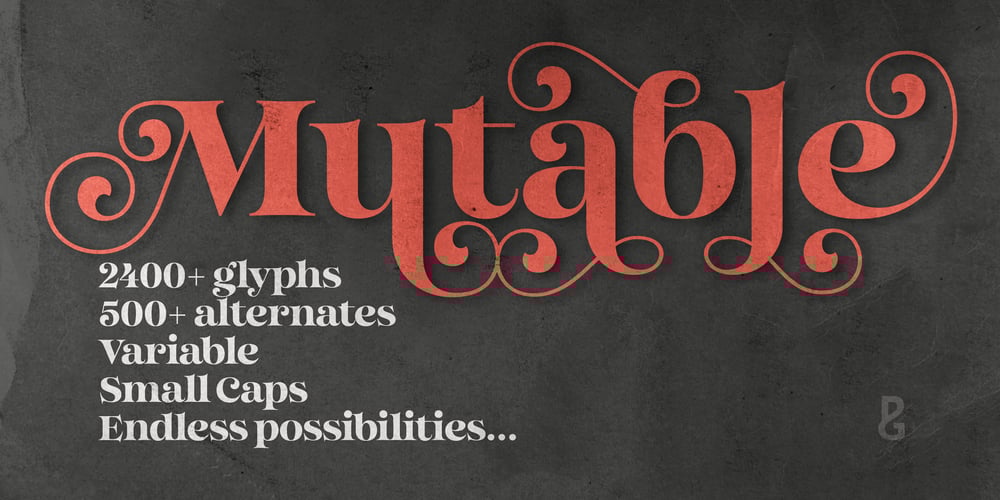
Mutable Font Family was designed by Paulo Goode and published by Paulo Goode. Mutable contains 19 styles and family package options. Mutable is as flamboyant and changeable as its name suggests. These characterful fonts were designed specifically for display purposes. It’s an exuberant type family that’s jam-packed with alternates and bestowed with a loud personality.This typeface is defined by its barbed serifs and elegantly curved terminals, or “foxtails” as they are sometimes known. An extremely large x-height amplifies the friendliness and buoyancy of the lowercase glyphs. These qualities give Mutable a unique aesthetic that will undoubtedly give your logotypes, headlines, and titles a distinctive appeal. Mutable has a strong Art Nouveau influence and was mainly inspired by Ed Benguiat’s Tiffany and the mysterious Pretorian typeface accredited to P.M. Shanks and Sons of London.Special OpenType features include 523 alternates that will make each word resonate beautifully when used in titling and branding situations. With so many alternates available, you may find it difficult to stop playing and settle on a selection… but that’s a good thing, right? Small Caps are also included (along with their matching diacritics and alternates) – these are designed to harmonise with regular lowercase forms making unicase-style typography a cinch.Mutable has a total glyph count of over 2,400 characters. There are 9 weights across 2 widths, ranging from a delicate and wispy Narrow Thin to a chunky and imposing Ultra. And… it’s variable! This allows you to select any width or weight in between, making Mutable even more… erm… mutable! This type family has an extensive character set that covers all Latin European languages. Finally, you can test drive Mutable immediately as the Regular weight is offered as a free download.Key features: 9 Weights 2 Widths Variable Small Caps 500+ Alternates Old Style Figures European Language Support (Latin) 2400+ Glyphs per font